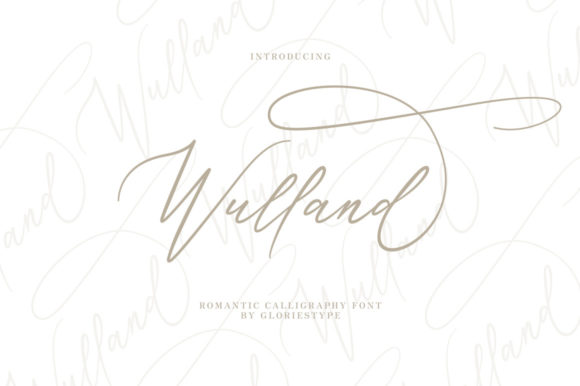
Embark on a typographic journey with Wulland Font, a celestial symphony of slender strokes and elegant curves. This script font, crafted by the skilled artisans at Gloriestype, is a testament to the power of written words. Wulland's divine presence will elevate your creative projects to ethereal heights.
Wulland, with its ethereal beauty and delicate charm, is an ode to the divine. Its sinuous lines and harmonious proportions evoke a sense of reverence and awe. Whether you're designing wedding invitations, heartfelt letters, or captivating social media posts, Wulland will infuse your words with an otherworldly grace.
With Wulland, you'll discover a font that dances across the page like a celestial ballet. Its thin, elongated letters possess a captivating allure, inviting your readers to linger and savor each word. The font's graceful flourishes and intricate details add a touch of elegance and sophistication to any project.
But Wulland is more than just a beautiful face. It's also incredibly versatile, adapting seamlessly to a wide range of design styles. Whether you're creating religious texts, enchanting logos, or enchanting branding materials, Wulland will effortlessly elevate your work.
So, let Wulland be your muse. Let its ethereal beauty guide your creative spirit to new heights. Experience the transformative power of a font that touches the soul and leaves an everlasting impression. Embrace Wulland today and embark on a typographic journey that will ignite your imagination and captivate your audience.